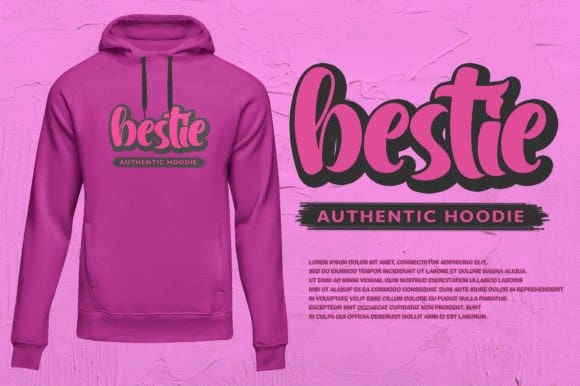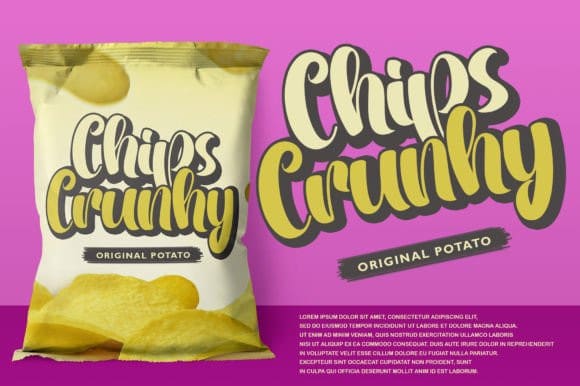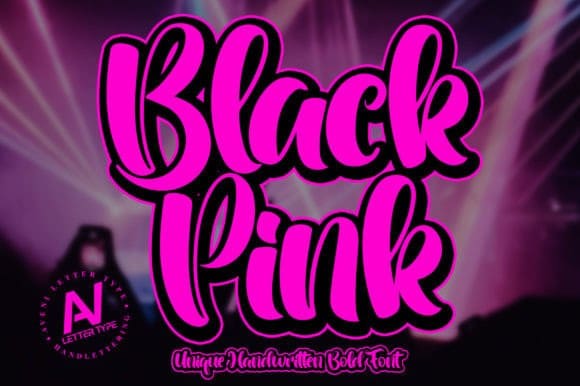
Black Pink Font
Black Pink Font is a fun and bold handwritten font that conveys impeccable friendliness. Whether you’re using it for crafts, digital design, presentations, or making greeting cards, this font has the potential to become your favorite go-to font, no matter the occasion!